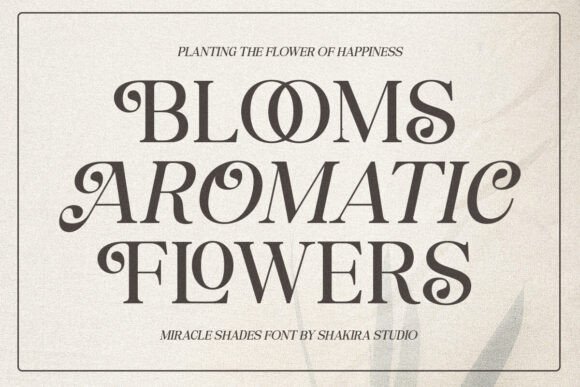
Miracle Shades Font
Introducing Miracle Shades, a Modern Serif Display font that offers a sleek and contemporary edge to any design project. Available in both regular and italic versions, Miracle Shades is crafted for those who seek a blend of modernity and sophistication.
Its distinct serifs and clean lines make it ideal for high-impact headlines and elegant branding. Whether you’re designing for print, web, or digital media, Miracle Shades delivers a versatile typography solution that commands attention.